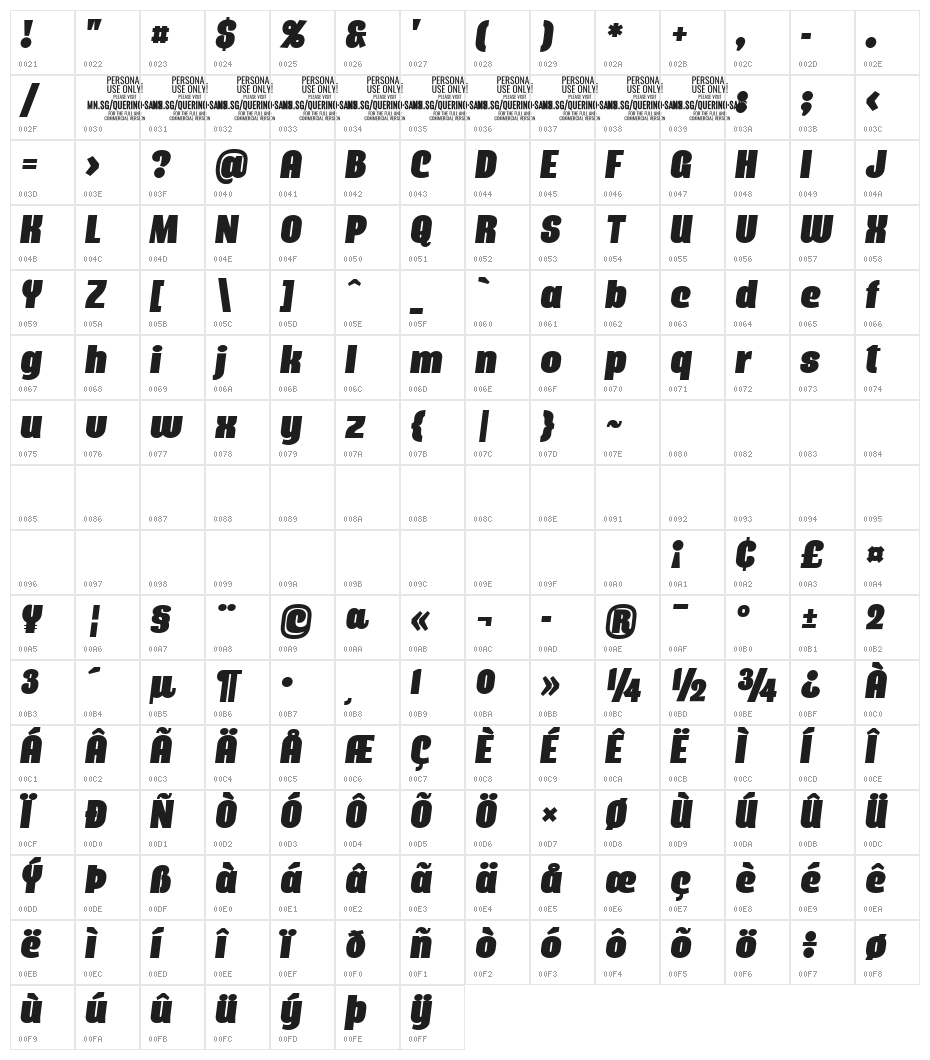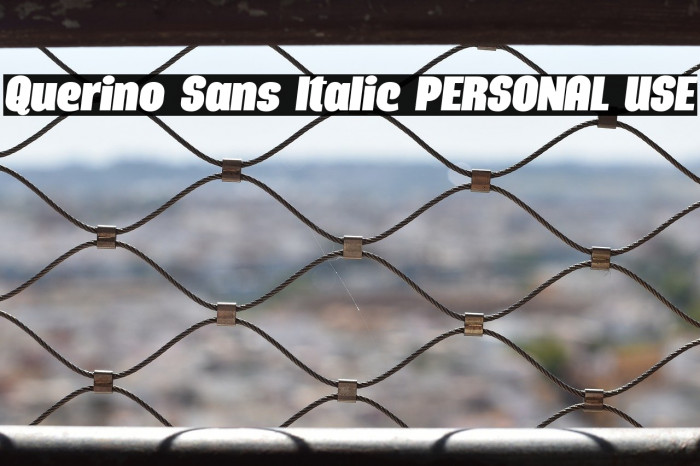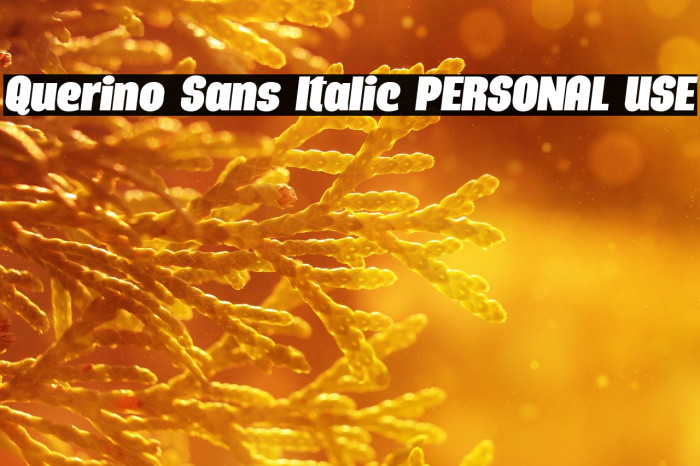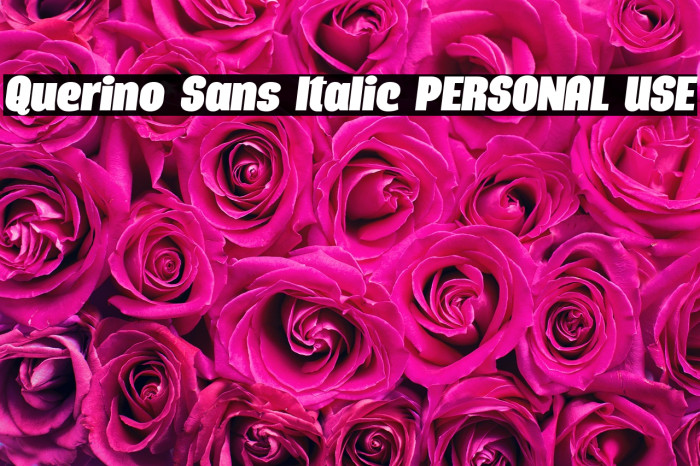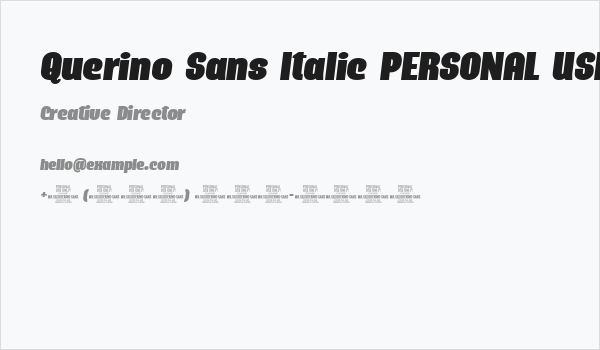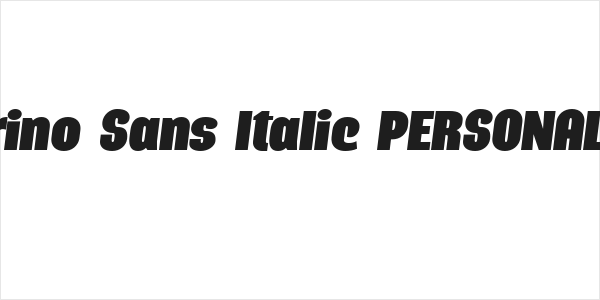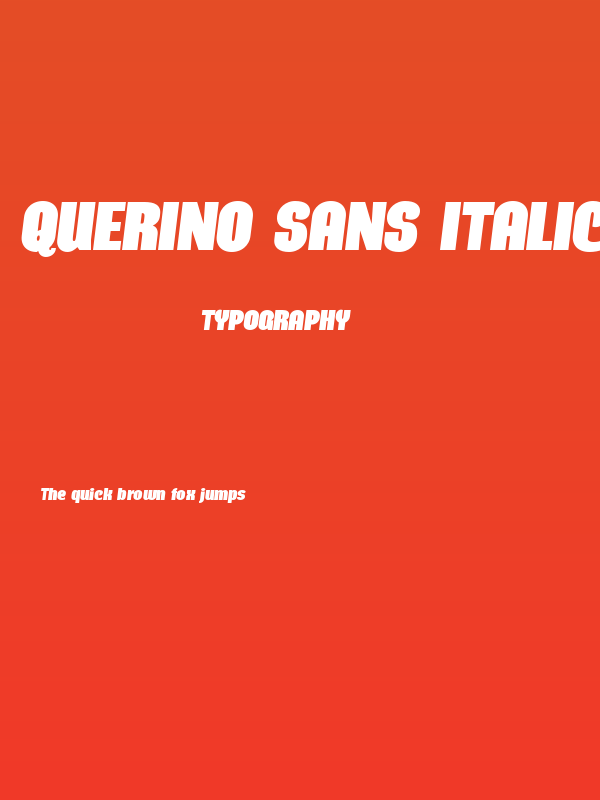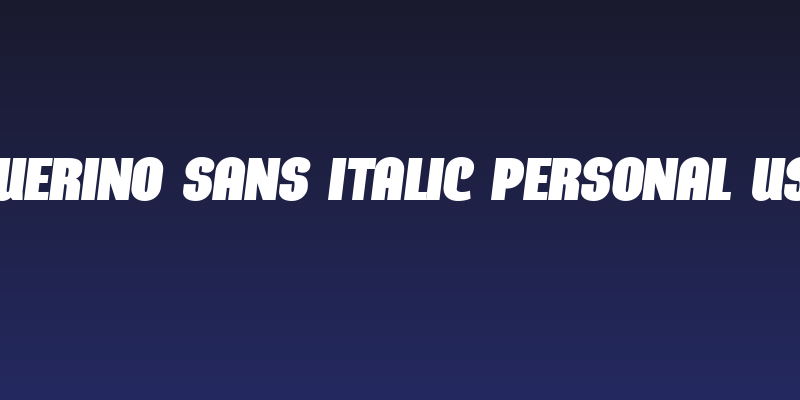
Querino Sans Italic PERSONAL USE Font
Querino Sans Italic PERSONAL USE Description
This font features a bold and dynamic style with a strong presence. The characters are italicized, giving them a forward-leaning posture that conveys a sense of motion and energy. The strokes are thick and consistent, providing a robust and impactful appearance. The uppercase and lowercase letters maintain a uniformity in width, contributing to a cohesive and structured look. The font includes a full set of numerals and a variety of punctuation marks, making it versatile for different uses. Its boldness and slant make it particularly suitable for attention-grabbing headlines and titles.